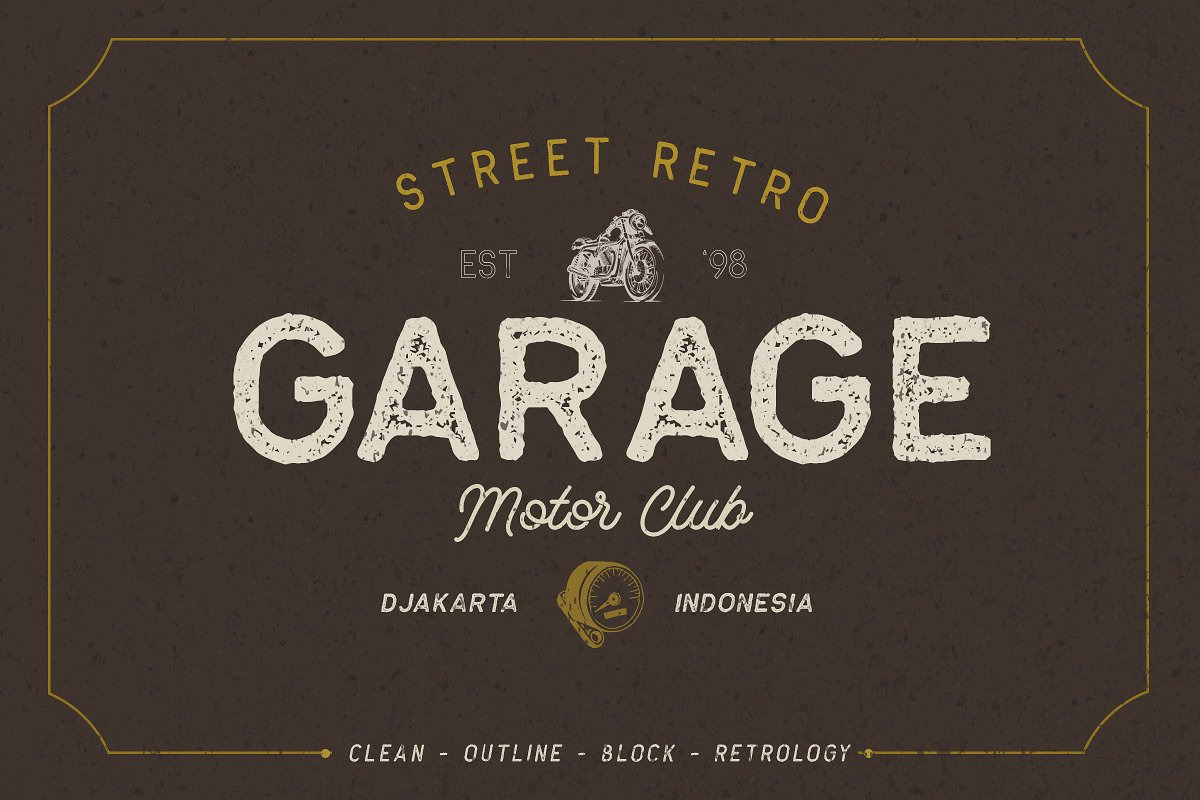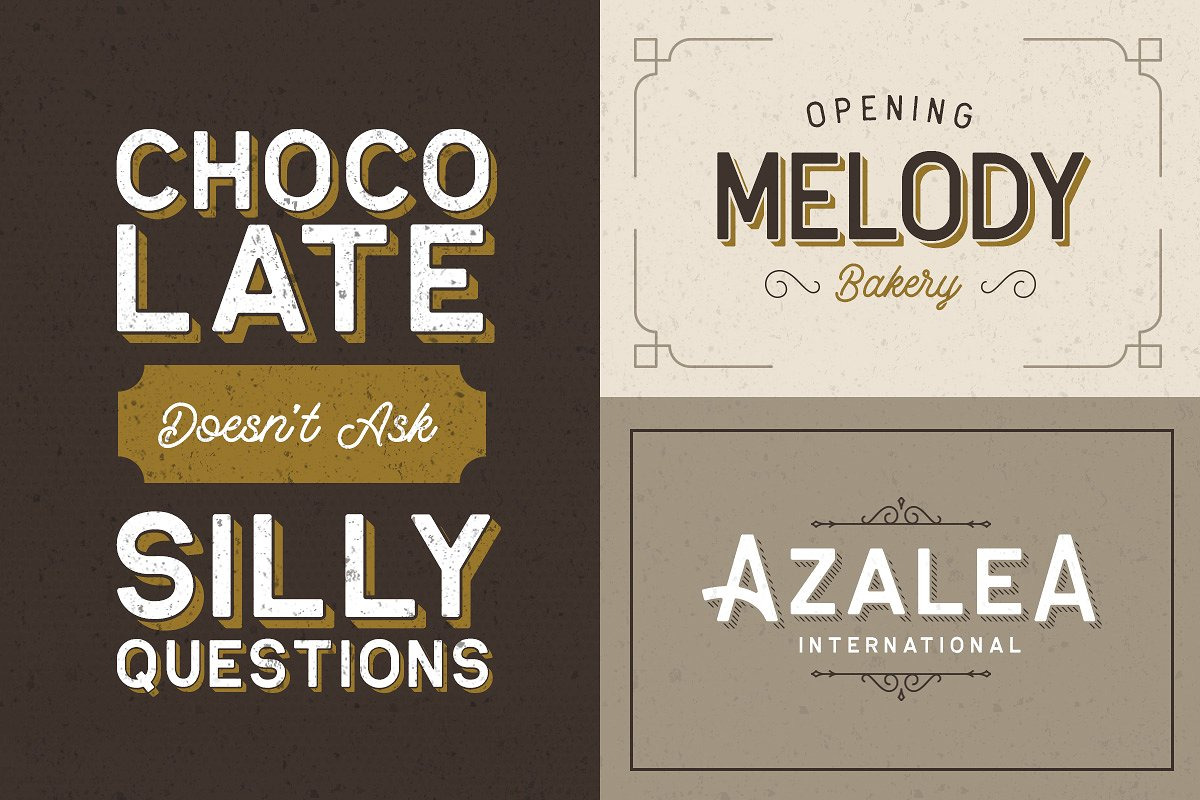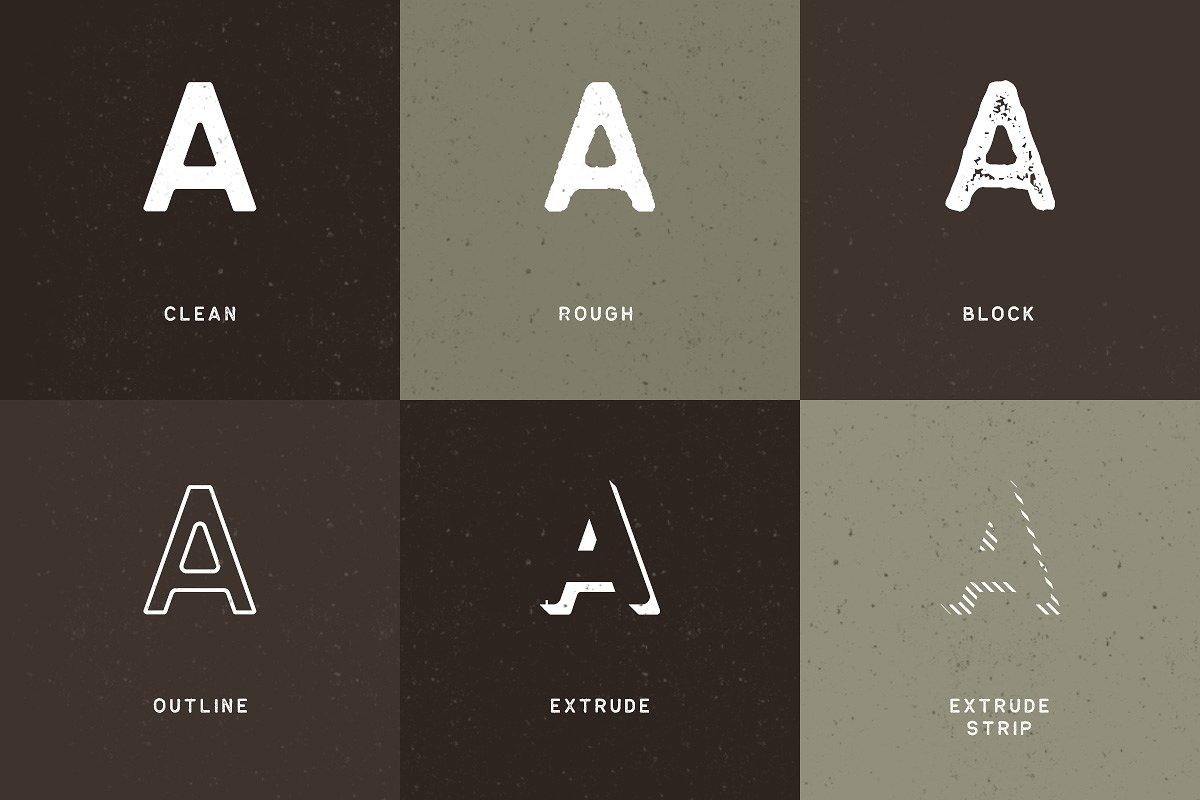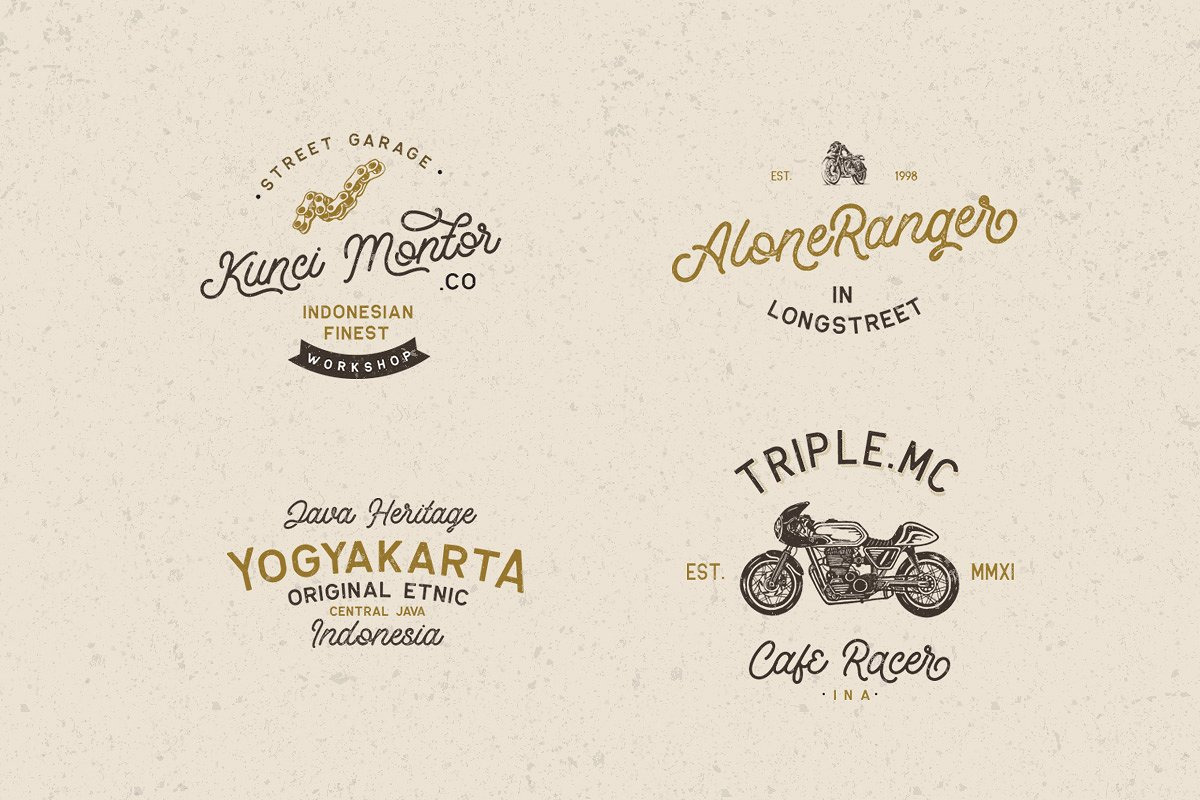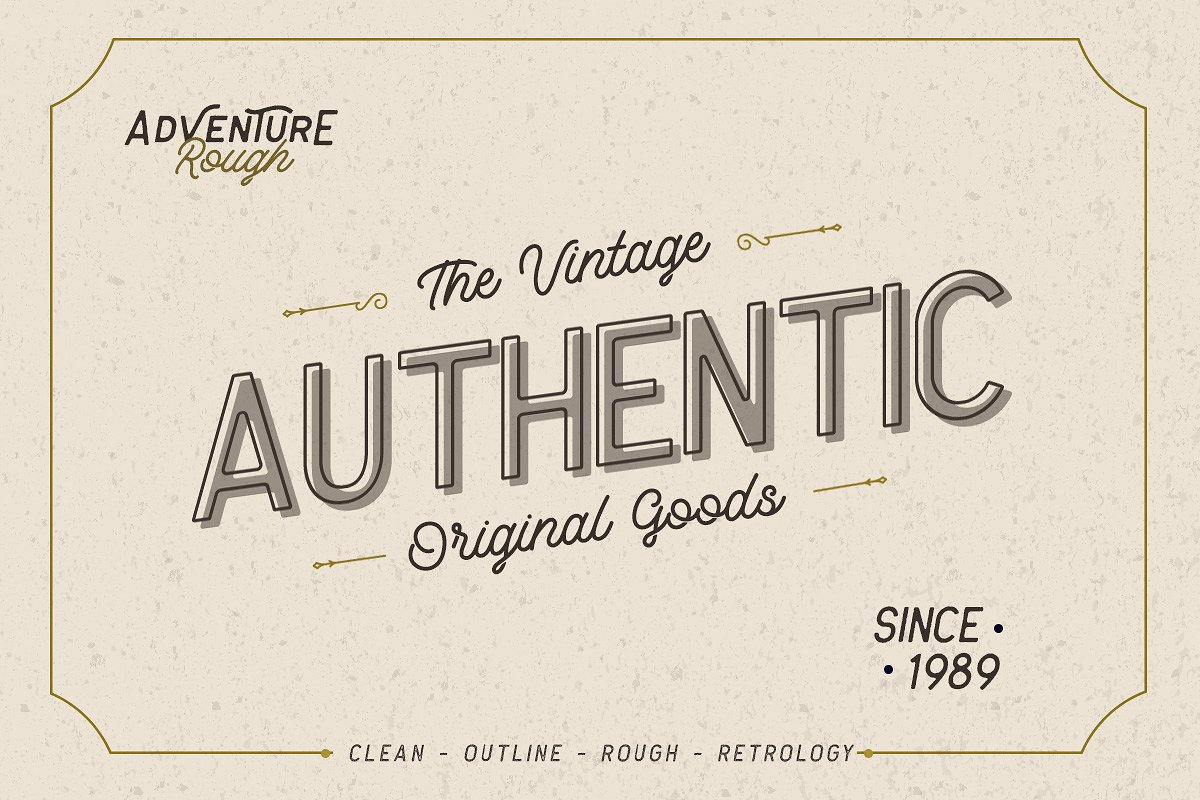
Antone Family - 7 FONTS
Introducing, Antone. A font family which has 7 font version. The character of the clean version of this font is bold, strong, yet elegant. While the rough and block version is suitable for vintage & retro feel. This font is very suitable to use as a pair with Retrology
Accents (Retrology only)
Ligatures, stylistic alternate, etc
Perfect for logotype, headline, apparel, poster with vintage feels.
- Accents (Retrology only)
- Ligatures, stylistic alternate, etc
- Multilanguage
- Perfect for logotype, headline, apparel, poster with vintage feels.
- Antone Block
- Antone Clean
- Antone Extrude
- Antone Outline
- Antone Rough
- Antone Extrude Strip